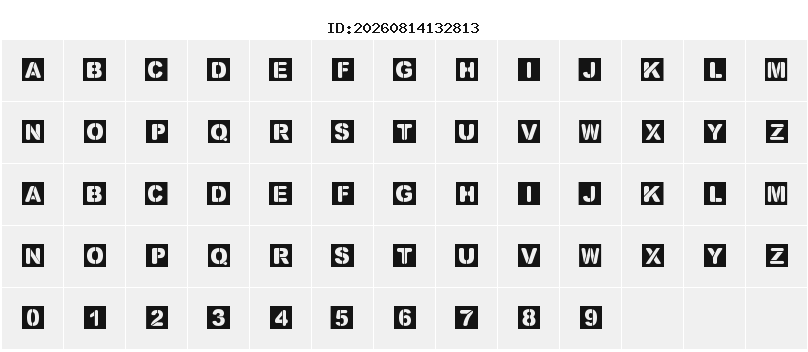
Street Stencil.ttf is a modern, elegant sans-serif font designed for ultimate readability and visual harmony. Perfect for branding, headlines, web design, and print materials.